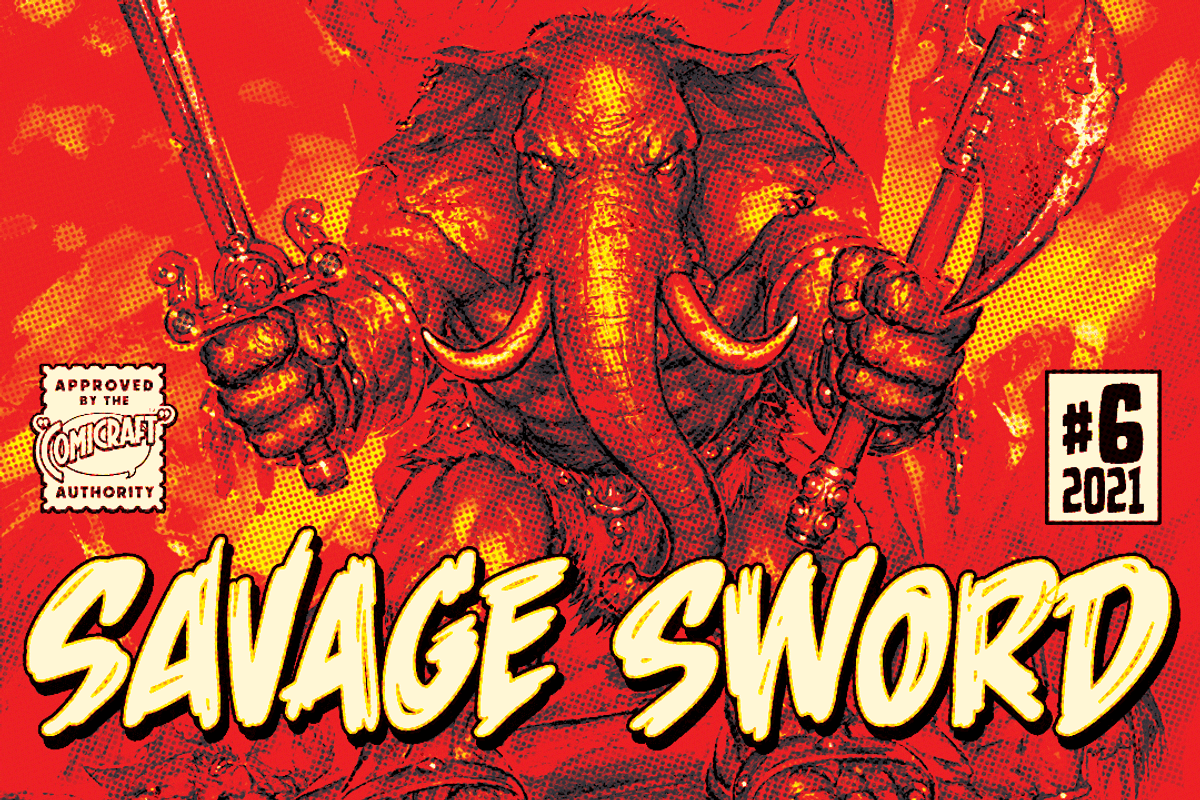
Savage Sword Font Free Download is a fierce and dynamic brush-style display font, perfect for comic book sound effects, action-packed titles, gaming visuals, and anything that needs an intense visual punch. Inspired by retro comic SFX and angry brush strokes, this typeface brings energy, chaos, and attitude to every letter.
Whether you're creating explosive dialogue bubbles, powerful logos, or poster art for action genres, Savage Sword slices through the noise with bold, expressive style. Its jagged edges and raw texture scream impact and motion. Savage Sword Font Free Download gives you the chance to test its power in personal projects before grabbing a commercial license.
Unleash bold storytelling with Savage Sword — the angry brush font made for impact, sound, and pure comic-style energy.